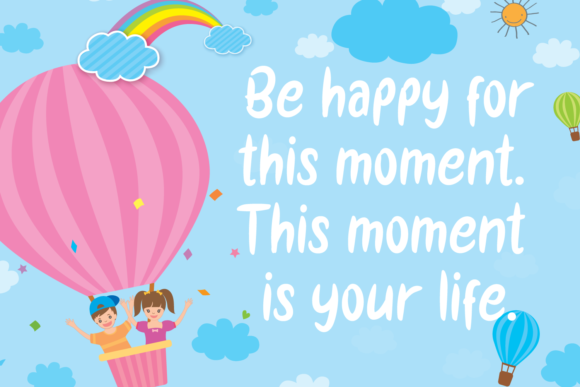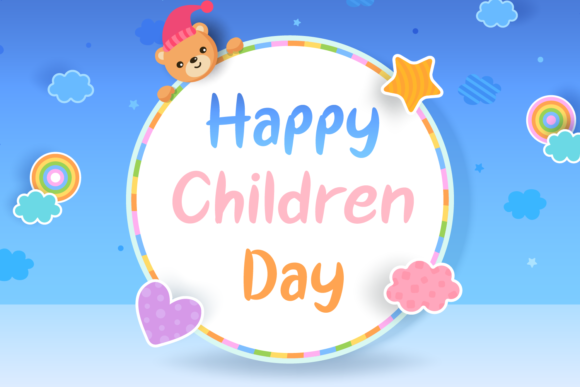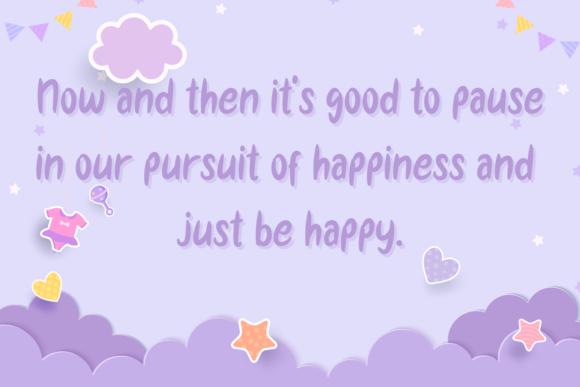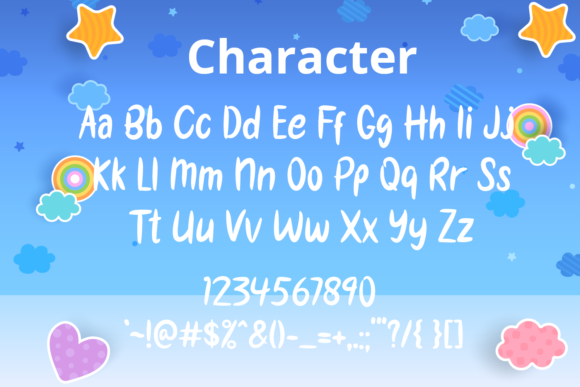
Baby Twice Font: The Perfect Choice for Children’s Activities and School Projects
Are you looking for a font that embodies playfulness and authenticity for your children’s activity or school project? Look no further than the Baby Twice font! This cute and fun display font is designed to bring a touch of whimsy and excitement to your designs, making it the perfect choice for any project aimed at kids.
What is Baby Twice Font?
Baby Twice is a chunky lettered font that is sure to make your designs come alive! Its playful and authentic style makes it perfect for use in children’s activities, school projects, and even craft projects. The font’s bold and rounded letters are easy to read and are sure to grab the attention of kids and adults alike.
Key Features of Baby Twice Font
- Playful and Authentic Style: Baby Twice font has a unique and playful style that is sure to add a touch of fun to your designs.
- Chunky Lettered: The font’s bold and rounded letters make it easy to read and perfect for use in titles, headings, and other design elements.
- Perfect for Kids: The font’s playful and authentic style makes it perfect for use in children’s activities, school projects, and even craft projects.
- Easily Readable: The font’s bold letters are easy to read, making it perfect for use in designs where readability is important.
Why Choose Baby Twice Font?
There are many reasons why Baby Twice font is the perfect choice for your children’s activity or school project. Here are just a few:
- Adds a Touch of Whimsy: The font’s playful style adds a touch of whimsy and excitement to your designs, making them more engaging and fun for kids.
- Perfect for Craft Projects: The font’s bold and rounded letters make it perfect for use in craft projects, such as handmade cards, invitations, and other paper crafts.
- Versatile: The font can be used in a variety of designs, from children’s activities and school projects to craft projects and even digital designs.
In conclusion, Baby Twice font is the perfect choice for any children’s activity or school project. Its playful and authentic style, chunky lettered design, and ease of use make it a versatile and fun font that is sure to bring a touch of whimsy and excitement to your designs. So why wait? Download Baby Twice font today and start creating fun and engaging designs for kids!